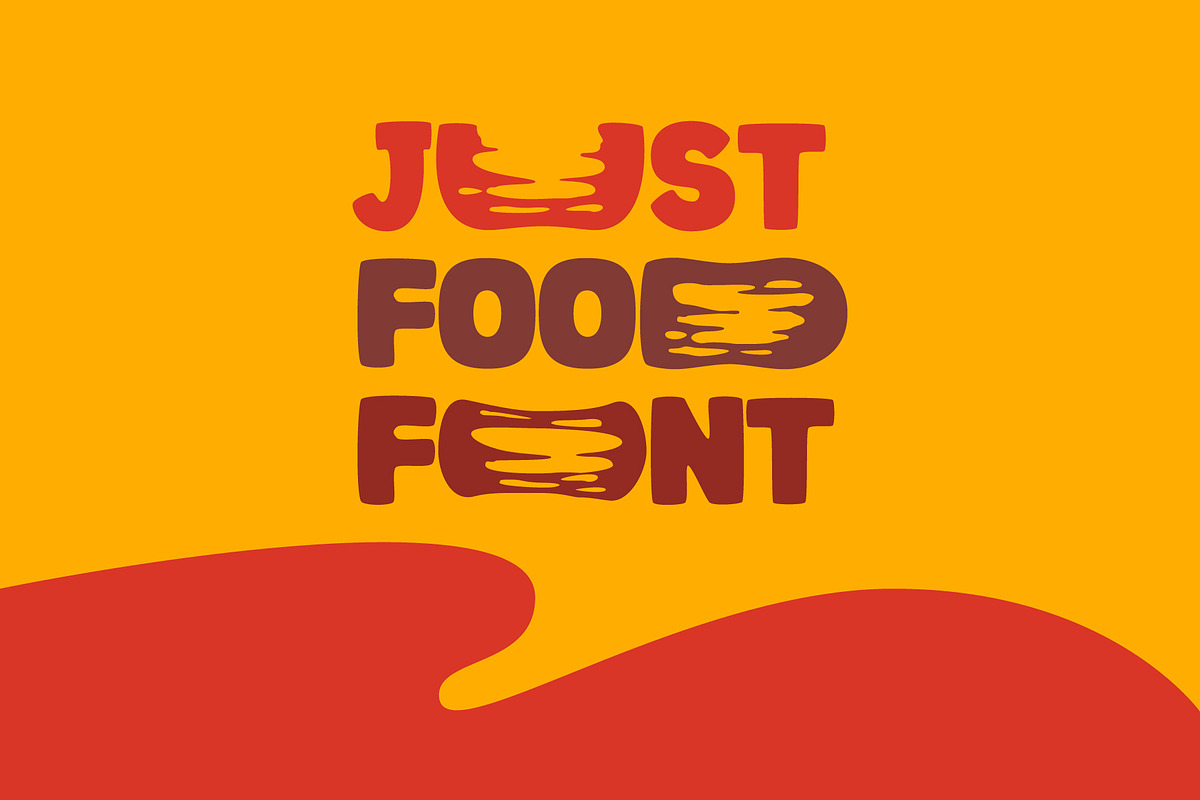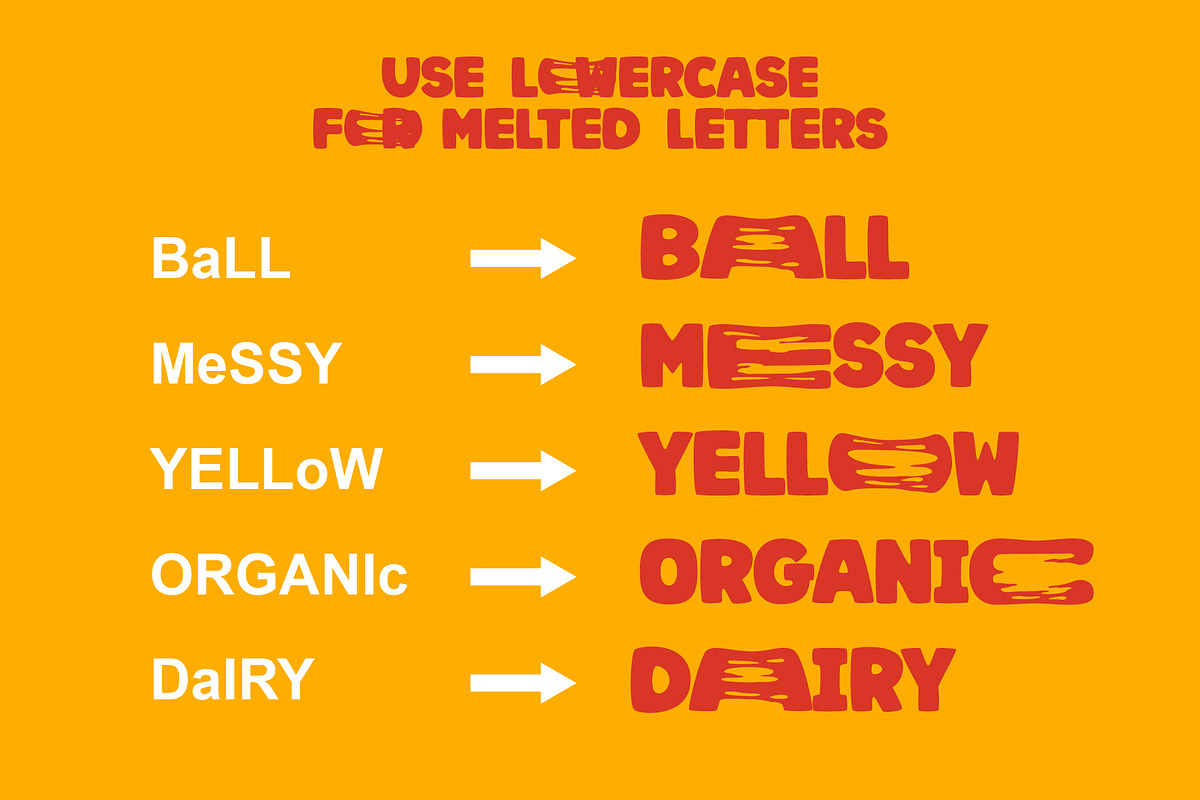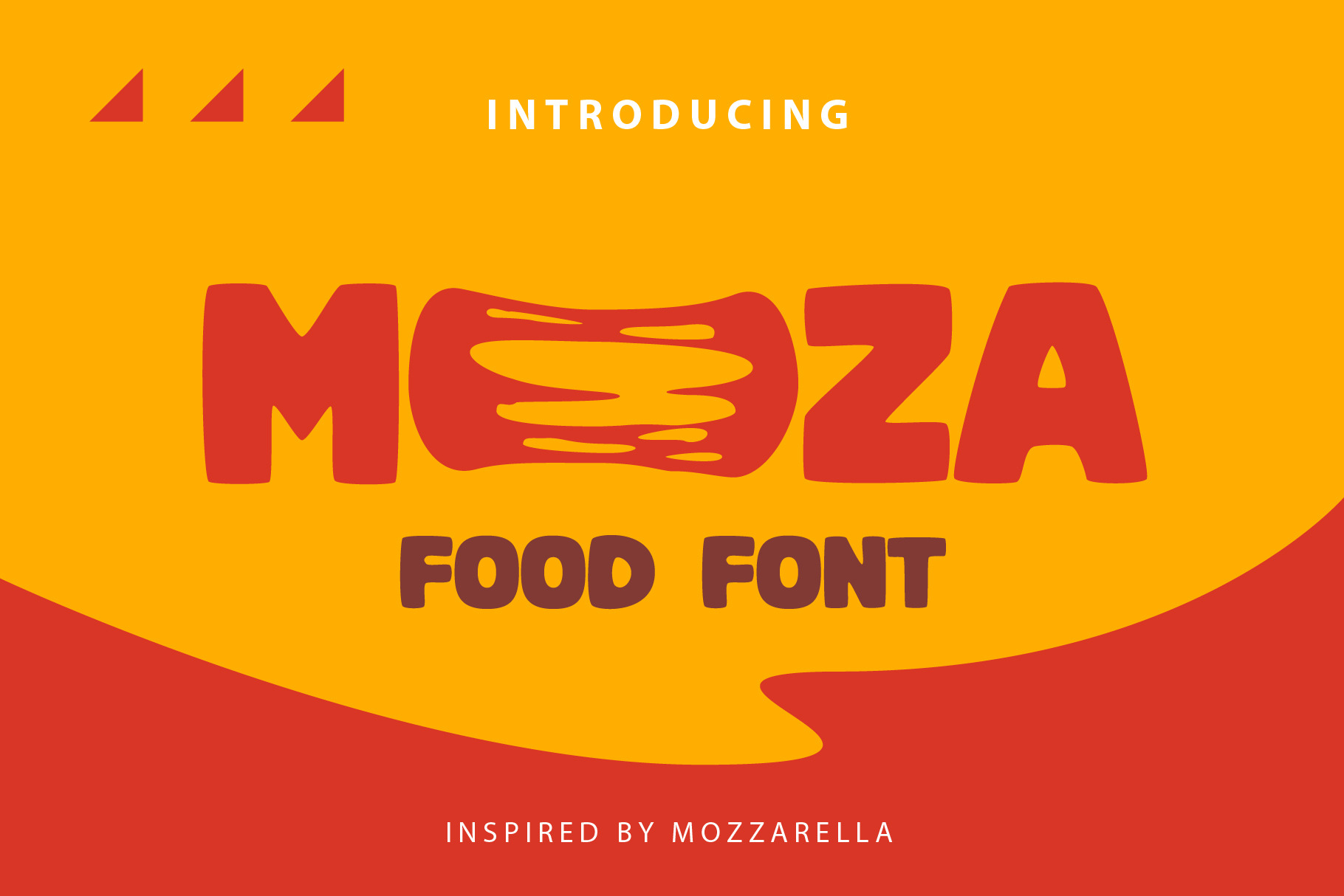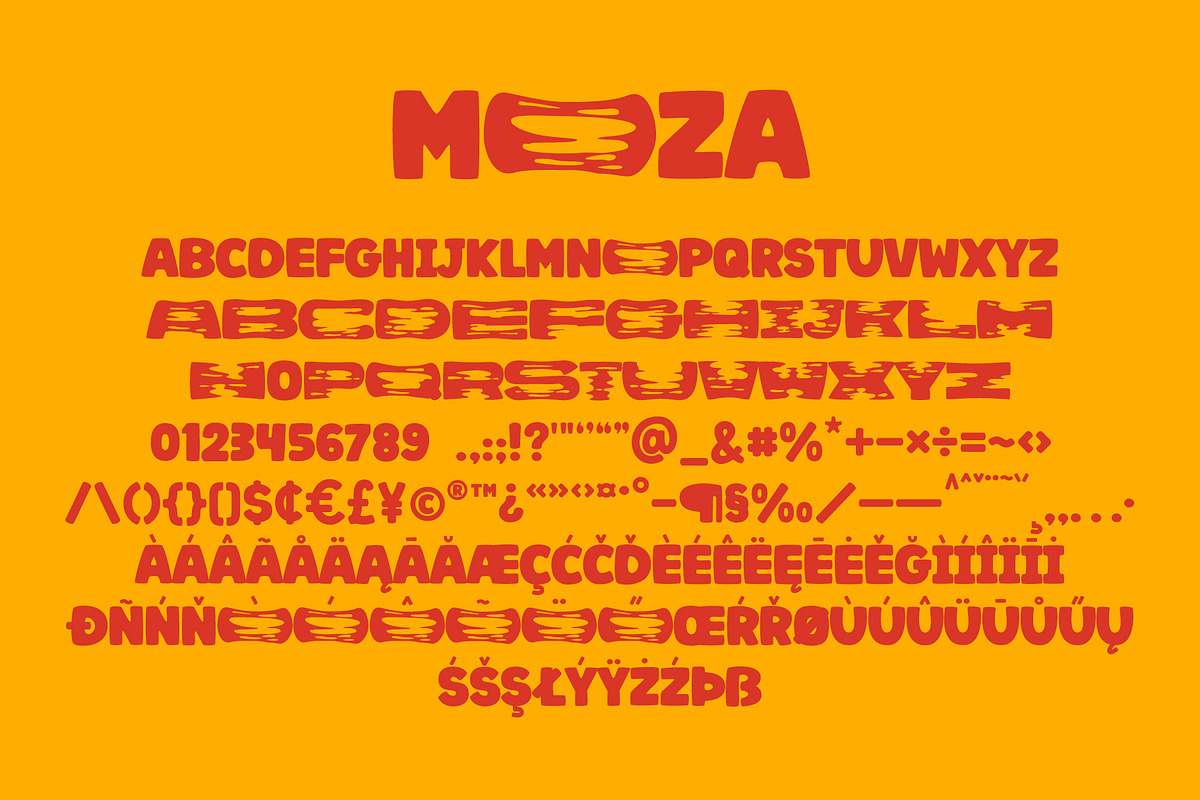
Melting font - MOZA
MOZA is a best food font style, this font is great for your next creative projects such as design project that related with food, street food, junk food, fast food and something melted like mozzarella.
This best font is best for your food business logo, food brochure, food menu and other project that related with food.
This food font comes with all caps letters, multilingual support, numbers and punctuation.
note : Type uppercase to get normal letters and type lowercase to get letters with drawn like mozzarella shapes.